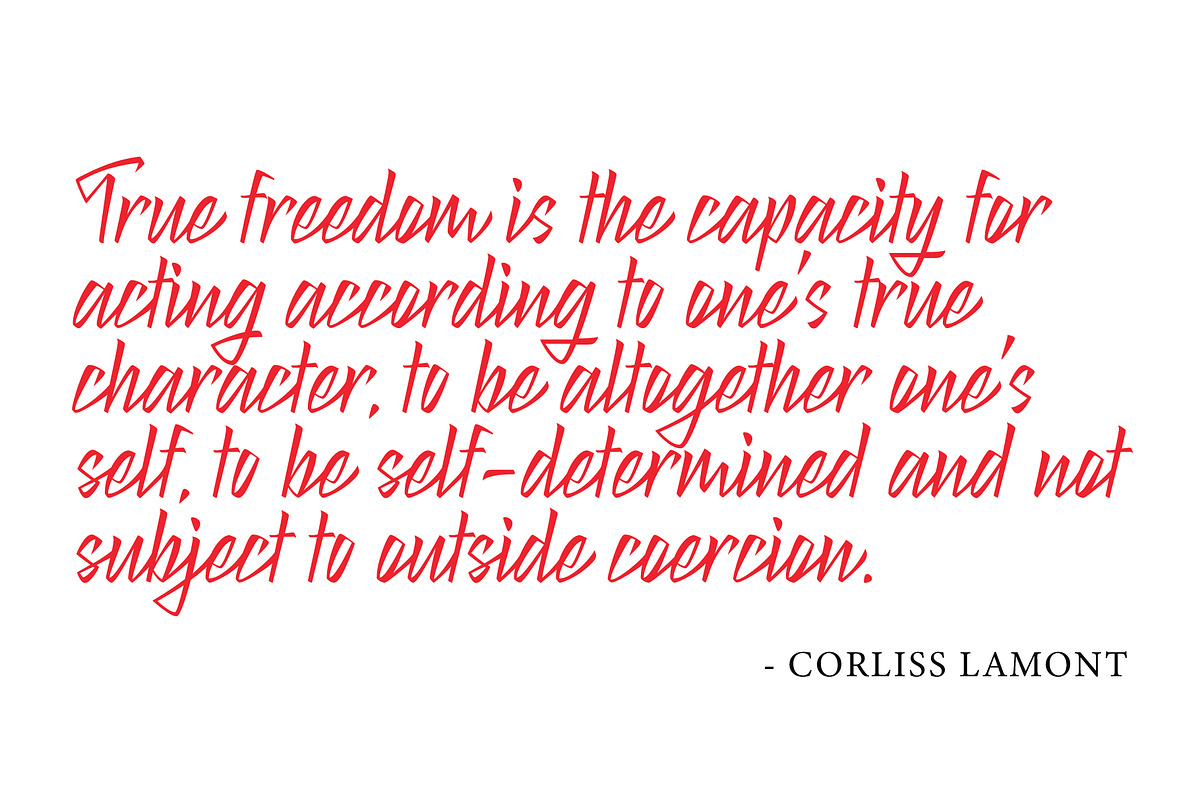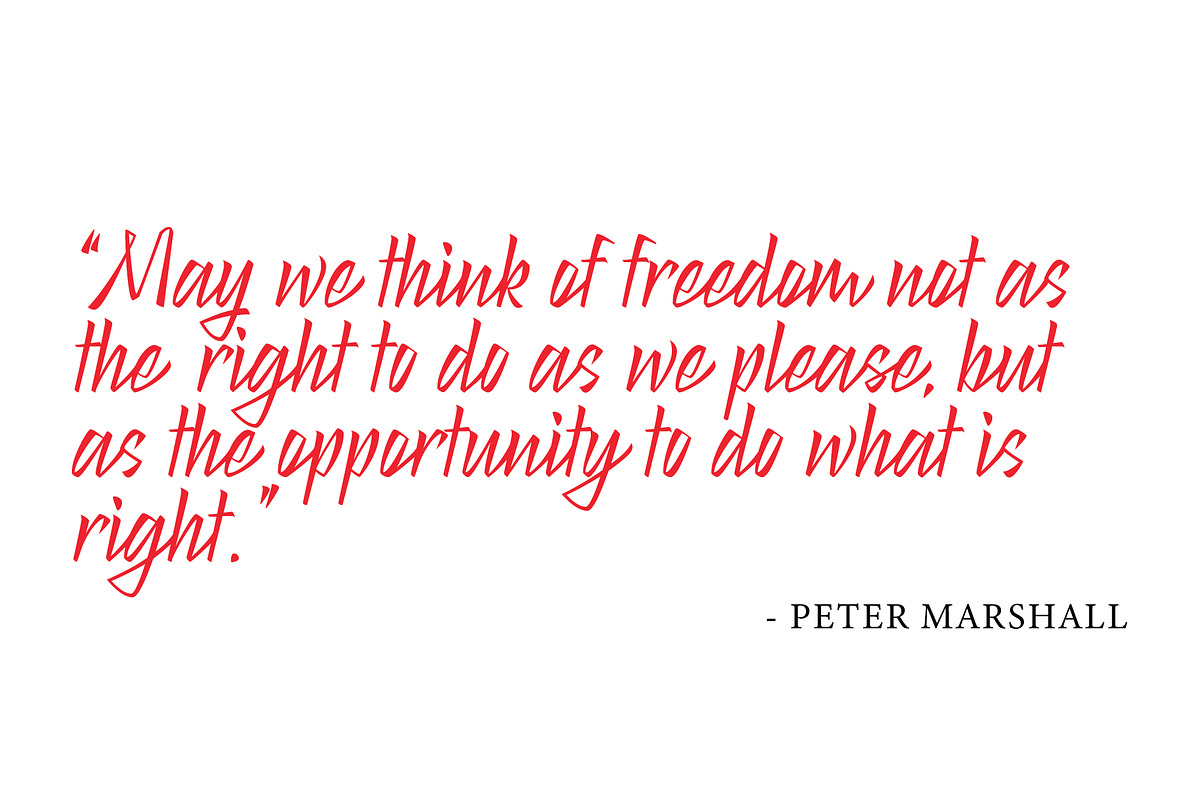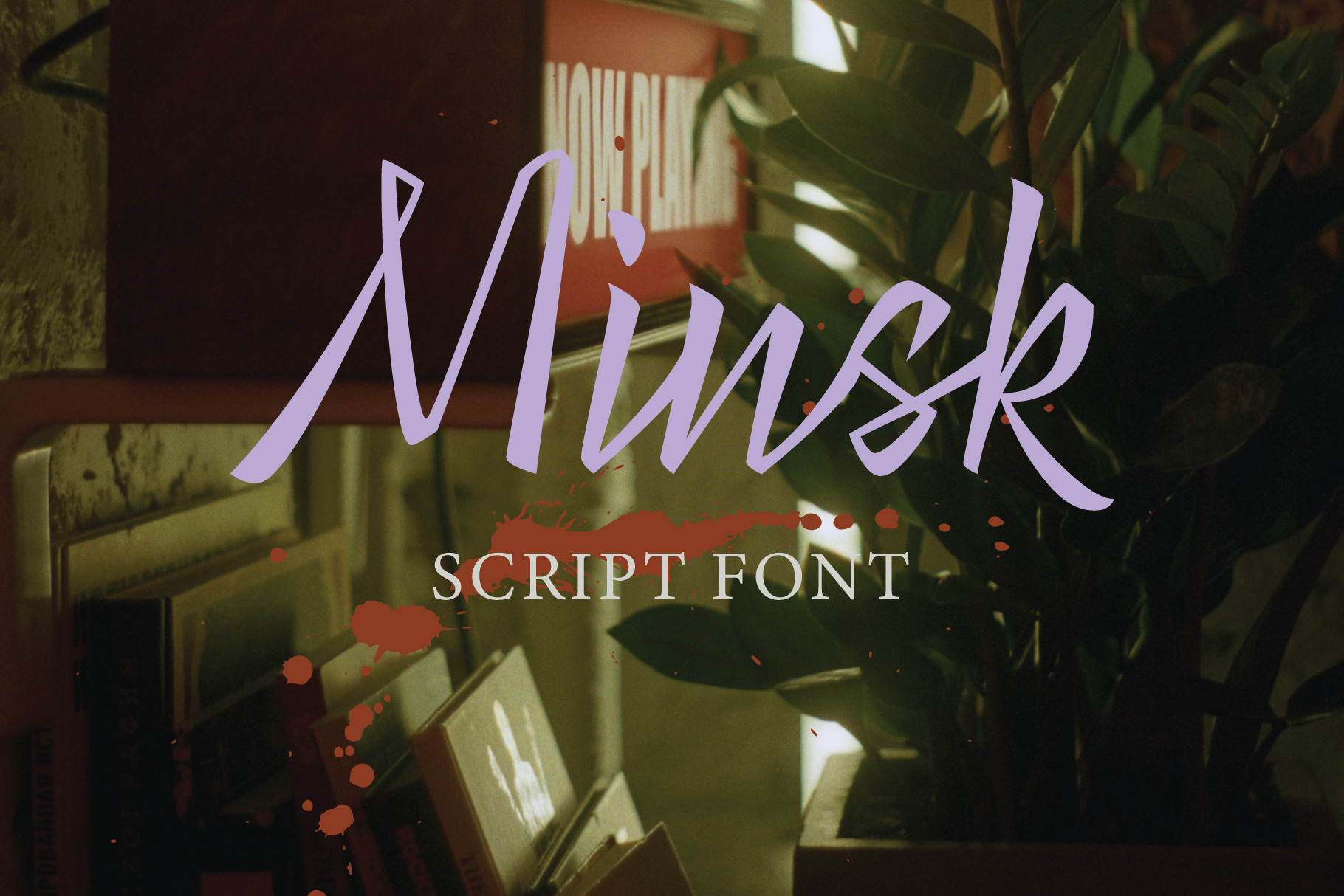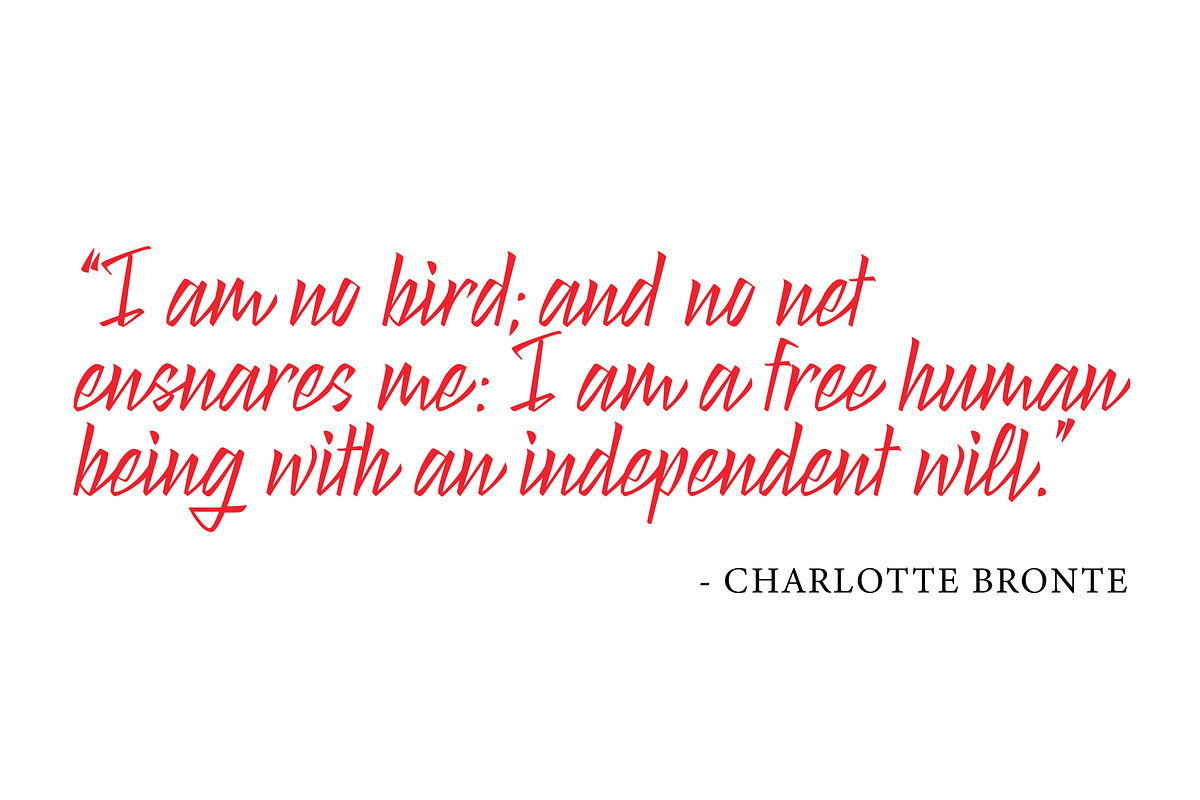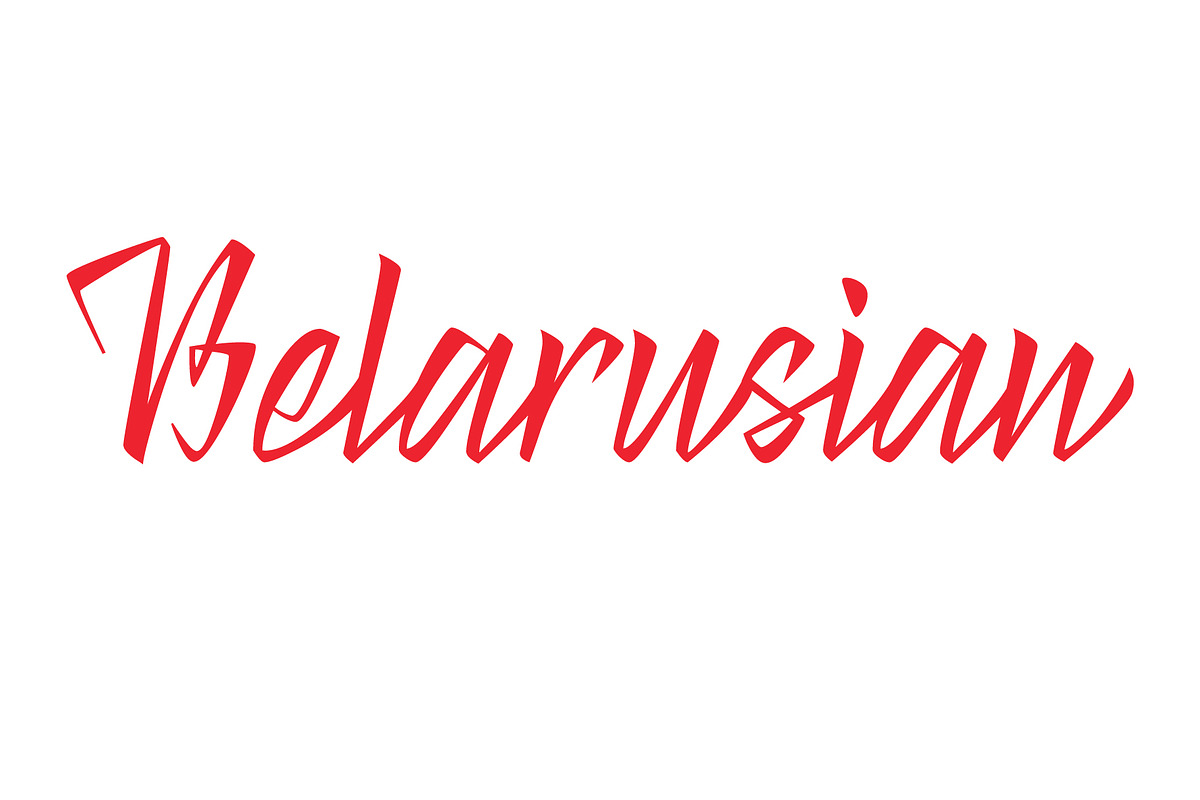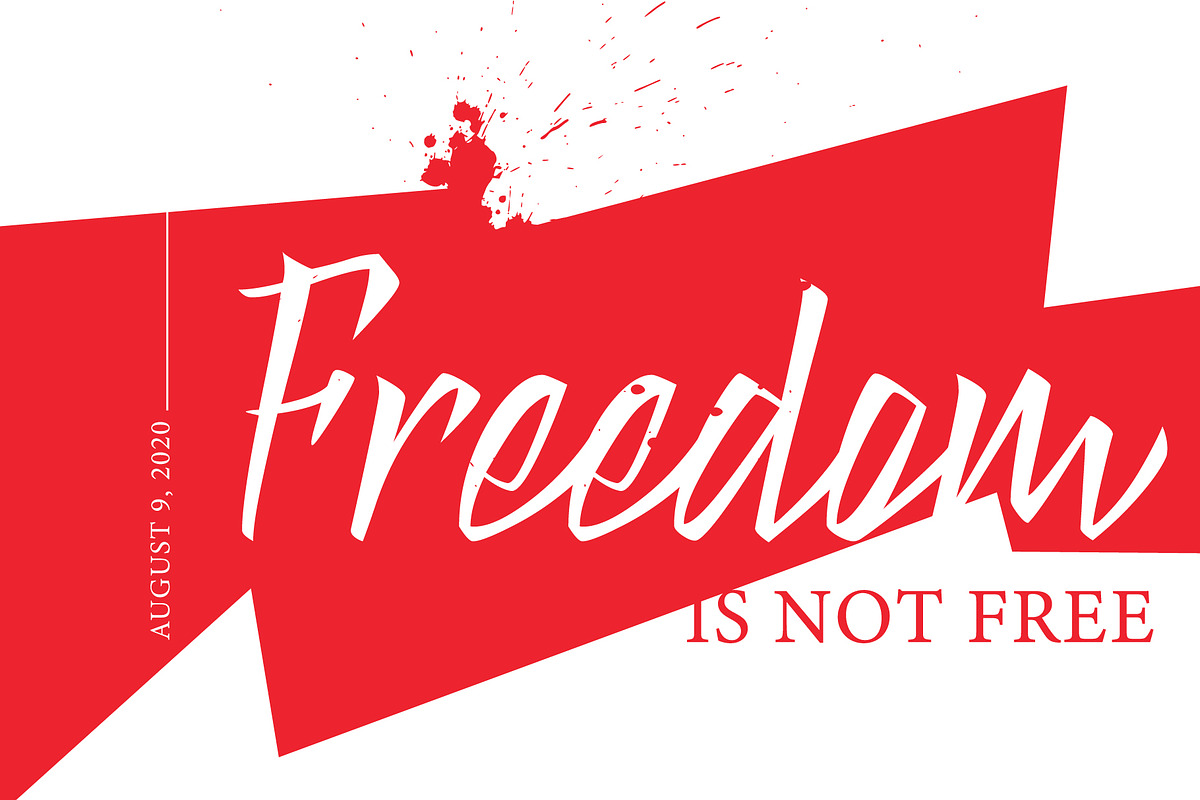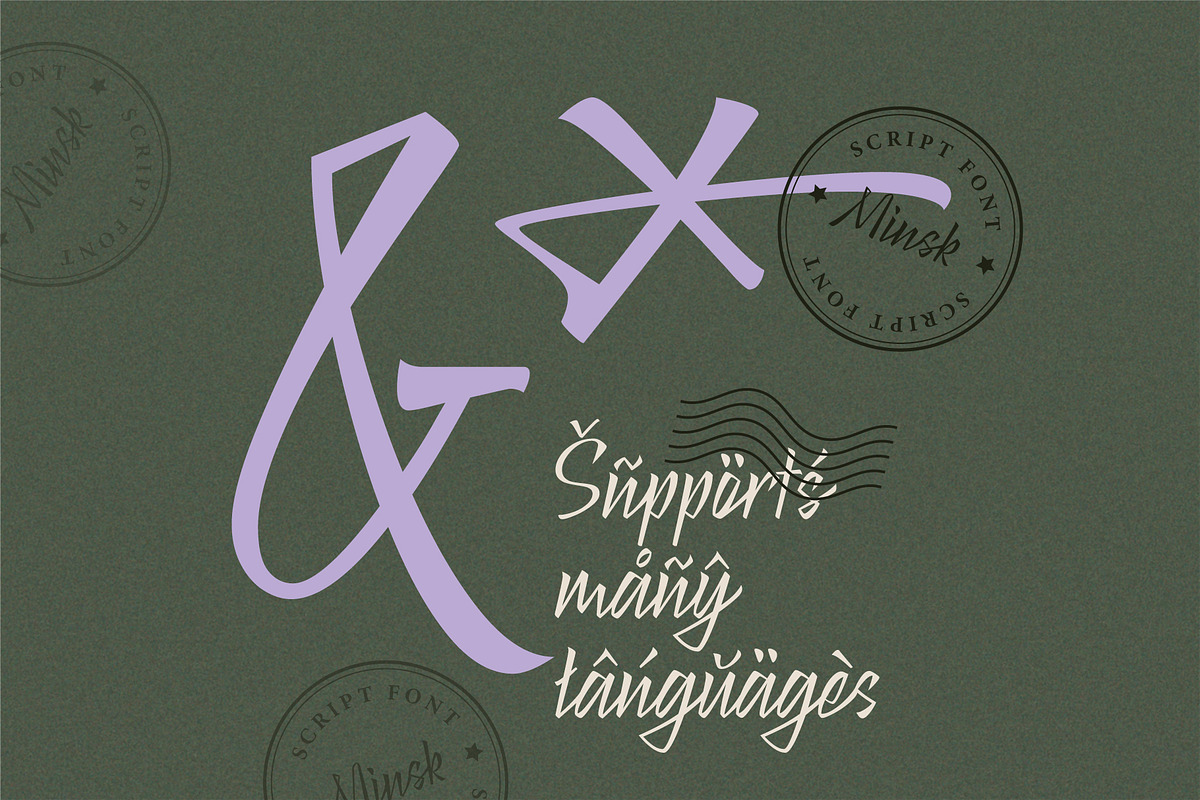
Minsk Script Font
Minsk Script has a sharp and bold character. In it, I wanted to reflect the mood in which I lived in the last year: the struggle for freedom, for civil rights, for the freedom to express personal views. I believe in the versatility of my values, and I want my font to manifest them everywhere.